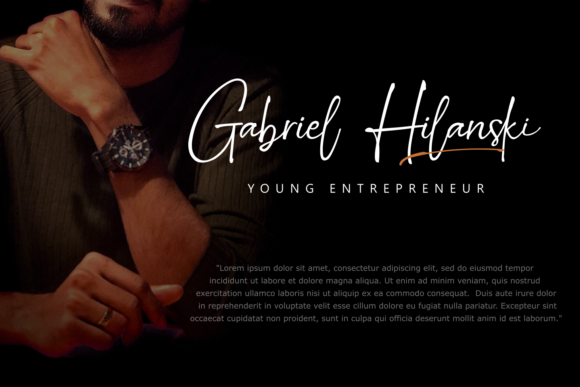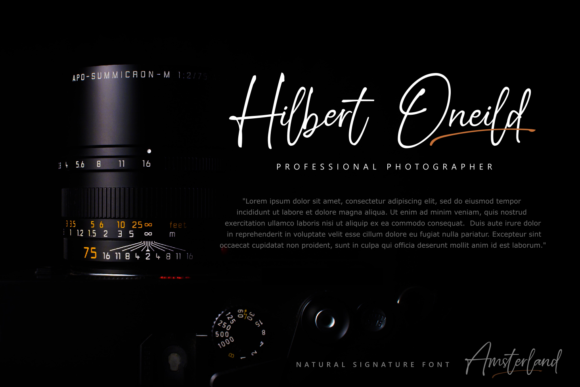
Amsterland Font
db-ku.com - Script & Handwritten -- Amsterland is a delicate, elegant and flowing handwritten font. It has beautiful and well balanced characters and as a result, it matches a wide pool of designs. This font is PUA encoded which means you can access all of the glyphs and swashes with ease!